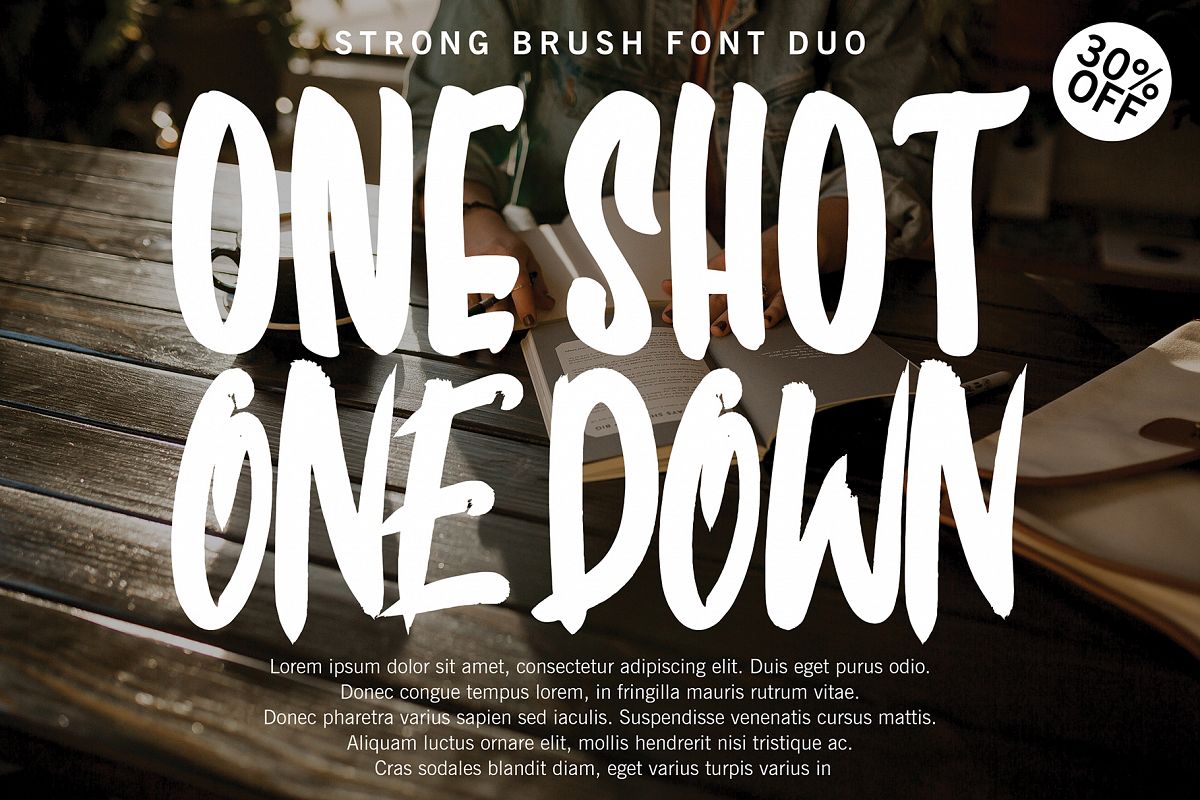
ONE SHOT FONT DUO !!!
One Shot
One Shot Brush
ONE SHOT font with new style Display, this font will perfect for many different project ex: quotes, logo, blog header, poster, banding, fashion, apparel, letter, invitation, stationery, etc...